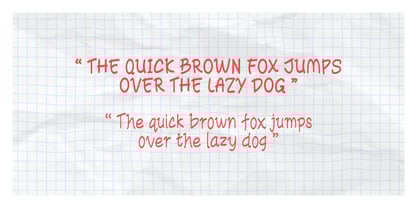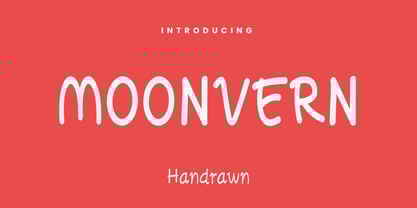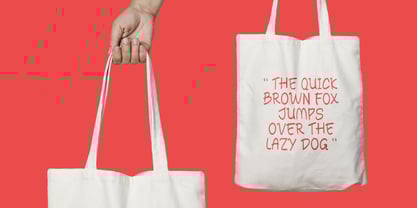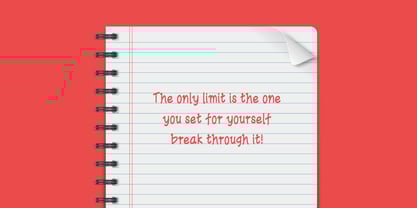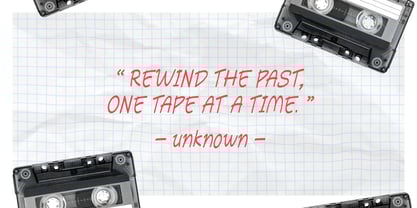
Moonvern
The Moonvern Font Family was designed by Nanda Deni Hermawan and published by Dhwtype. Moonvern contains 3 styles and family package options. More about this family
Moovern is a modern, hand-drawn serif font with clean, natural lines and a minimalistic edge. This font gives the impression of being typed directly on paper, bringing an organic, raw feel to your design.
The font family includes Regular, Semibold, and Italic, offering flexibility across different design applications. Moovern combines a natural, hand-drawn style with a clean, minimal approach, making it perfect for projects that need an edgy, contemporary look.
Key Features:
- Hand-Drawn Style: Each letter is carefully crafted with natural, flowing lines, making it feel as if written on paper.
- Minimal & Modern: The design is stripped down to its essentials, with a clean, fresh look that feels contemporary and edgy.
- Multiple Weights: Includes Regular, Semibold, and Italic for a wide range of design possibilities.
- Versatile Applications: Ideal for logos, headlines, branding, and more, providing a unique yet readable typeface for various projects.
With its natural, raw style, Moovern brings an edgy and contemporary twist to your designs, perfect for creating a strong visual identity in any creative field.